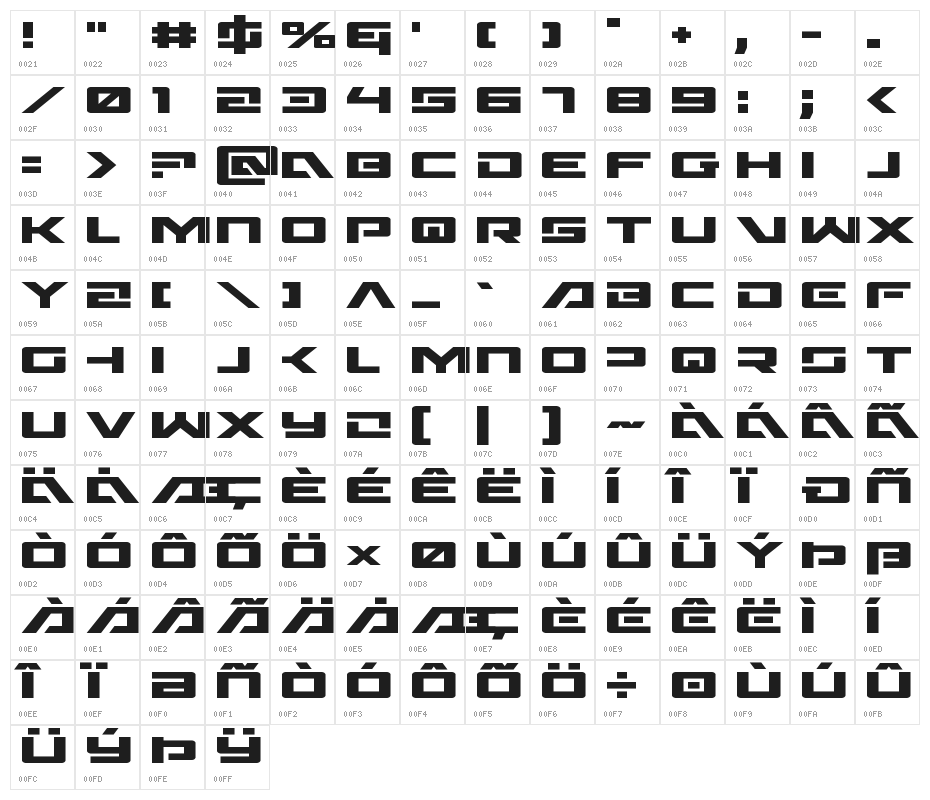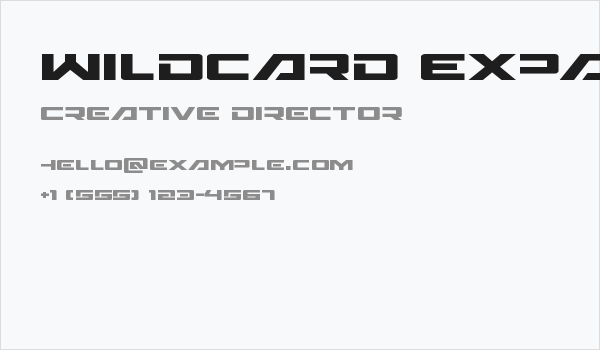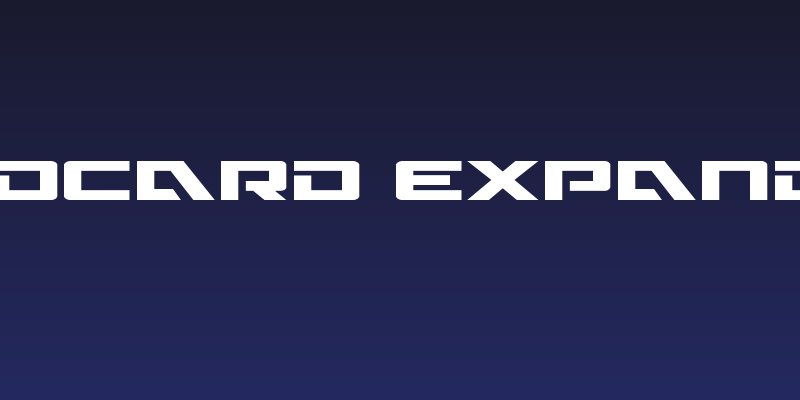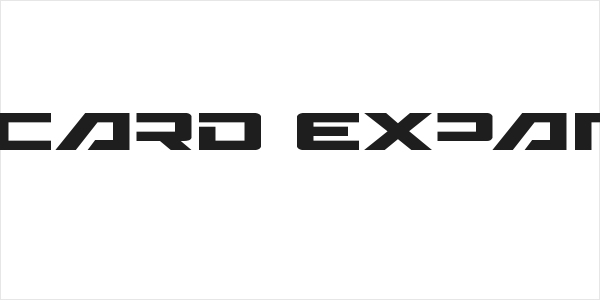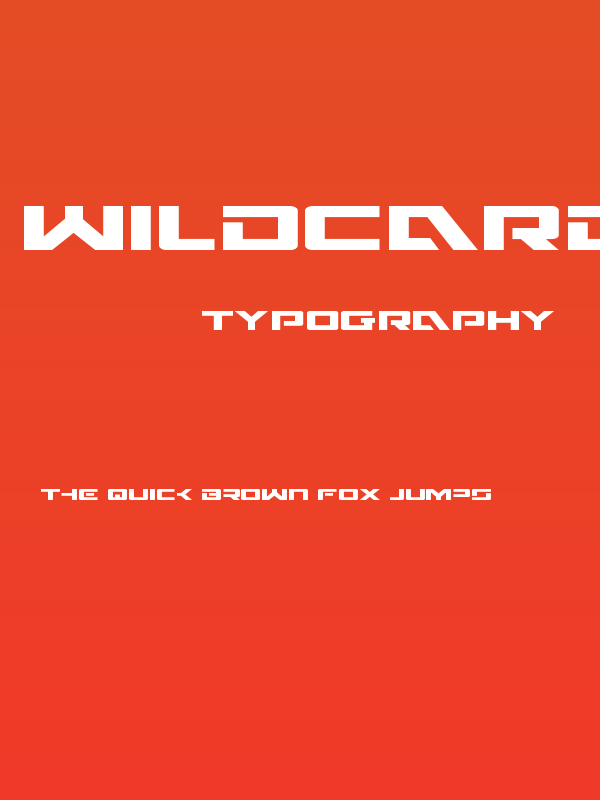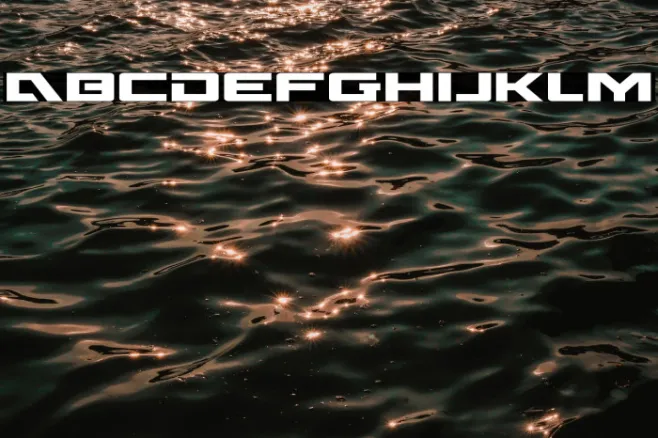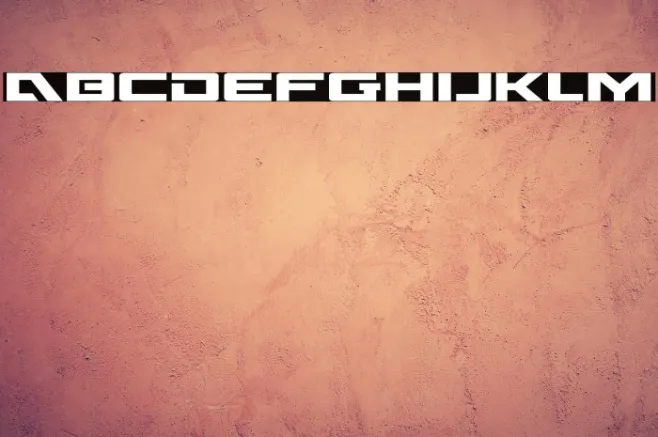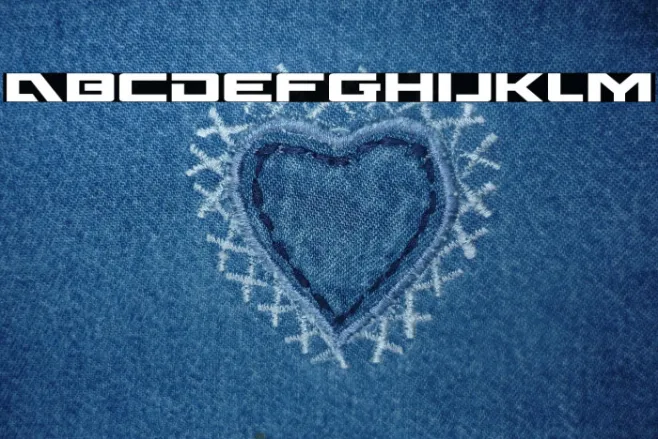
Wildcard Expanded Font
Wildcard Expanded Description
This font features a bold, futuristic design with geometric shapes and sharp angles. The characters are constructed with a blocky, stencil-like appearance, giving it a distinct, modern edge. The uppercase letters are uniform in height, while the lowercase letters maintain a consistent style, enhancing readability. The numerals and special characters follow the same design principles, ensuring a cohesive look across all glyphs. This font's unique style makes it stand out, ideal for projects that require a strong visual impact.
| Proposed Projects | Ideal for sci-fi themed designs, video game graphics, posters, and branding that requires a modern, edgy look. |